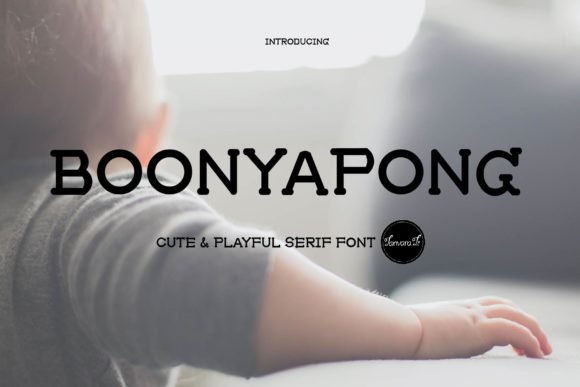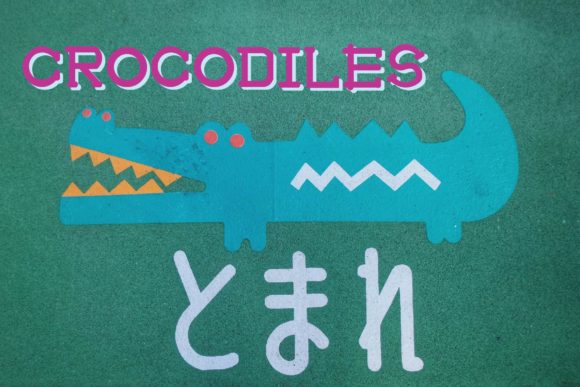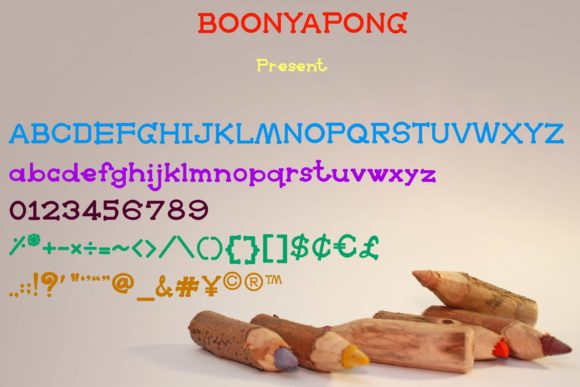
Enter the Boonyapong Font, a unique and captivating serif font designed to take your projects to new heights. This masterfully crafted font is perfect for anyone looking to add a touch of elegance and sophistication to their work. Whether you’re a seasoned designer or just starting out, the Boonyapong Font is an invaluable asset that will help you bring your creative vision to life.
Boonyapong Font Key Features
- Font Family: Boonyapong, Boonyapong Bold, Boonyapong Italic, Boonyapong Bold Italic
- Character Set: Unicode, covering a wide range of languages including Thai, Latin, and Cyrillic
- Unique Characteristics: Elegant, modern, and highly legible font with unique Thai-inspired designs, suitable for a wide range of applications including branding, advertising, and publishing
Boonyapong Font Review
Overall, I found the Boonyapong font to be a beautiful and unique addition to any design project. ✨ Its bold and playful strokes make it perfect for creating eye-catching headlines and titles. ✨ The font’s versatility shines through in its ability to be used for both modern and traditional designs.
Here are some of the things that I think work well in the Boonyapong font:
- Its bold and playful strokes make it perfect for creating eye-catching headlines and titles. ✨
- The font’s versatility shines through in its ability to be used for both modern and traditional designs.
- It has a wide range of weights and styles to choose from, making it easy to find the perfect fit for your project.
However, there are some limitations to the Boonyapong font that I’d like to point out:
- It may not be the best choice for body text, as it can be a bit difficult to read in smaller sizes. ⚠️
- The font may not be as polished as some other popular fonts on the market. ⚠️
- It may require some adjustments in terms of kerning and spacing to ensure that it looks its best in your design. ⚠️
Overall, I would give the Boonyapong font 4 out of 5 stars. It’s a beautiful and unique font that is perfect for creating eye-catching headlines and titles, but it may not be the best choice for body text or more formal designs.
Tips for Getting the Most Out of Boonyapong Font
Boonyapong Font is a beautiful, elegant font that works well for headings, titles, and other decorative text. To get the most out of it, use it sparingly to add a touch of sophistication to your designs. You can also experiment with different font sizes, colors, and styles to create a unique look.
Boonyapong Font is ideal for:
- Magazine and newspaper headlines